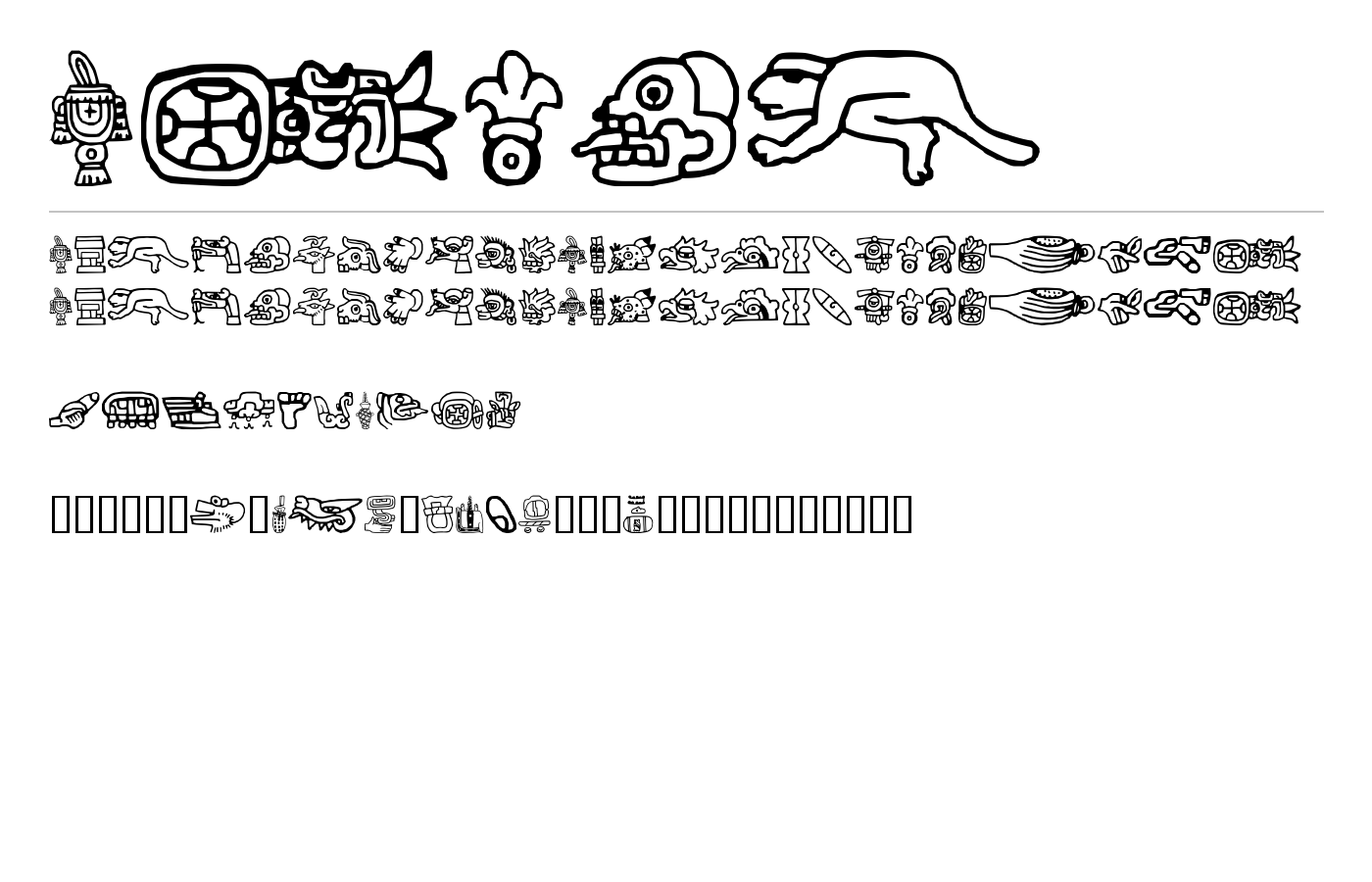
Aztec Font is a decorative display typeface inspired by ancient Mesoamerican symbols, featuring intricate, pictographic shapes that evoke historical and cultural motifs. With its bold, hand-drawn style and unique icon-like characters, this font adds a tribal and mystical feel, making it perfect for artistic projects, themed branding, or eye-catching headlines where a cultural and vintage atmosphere is desired.
aztec Font